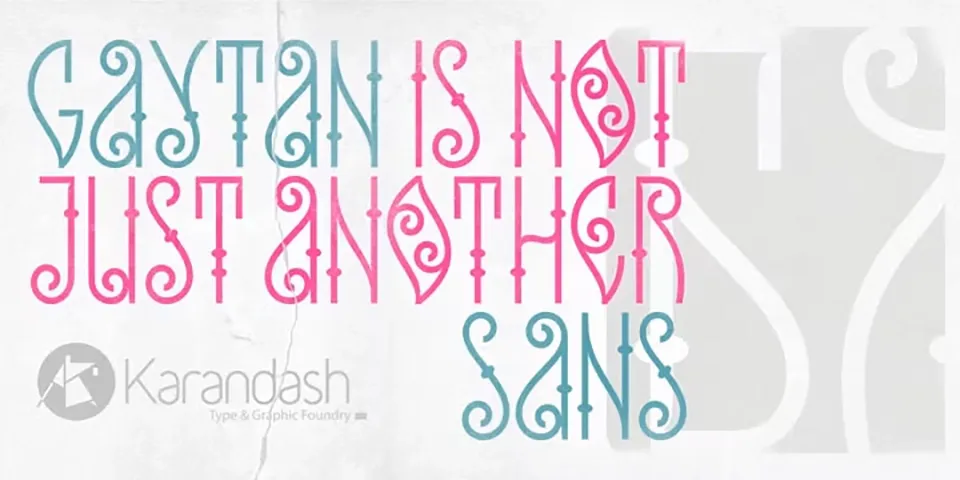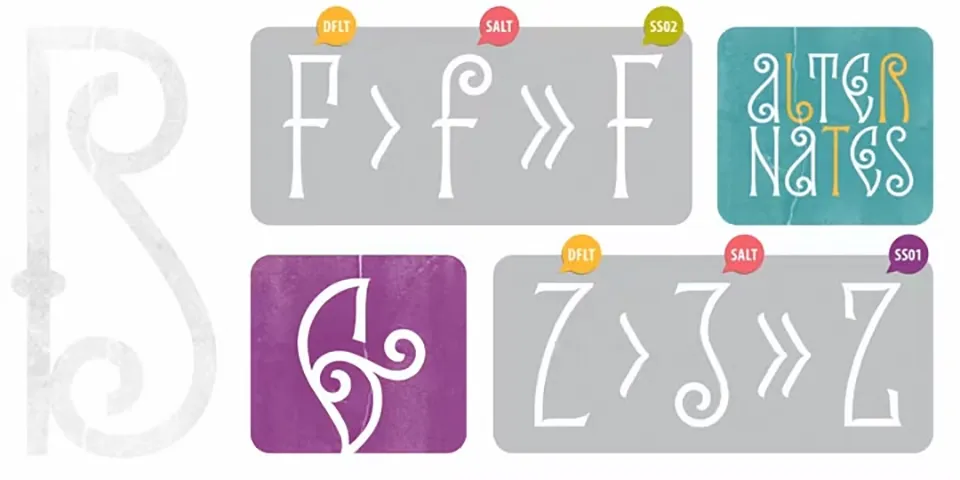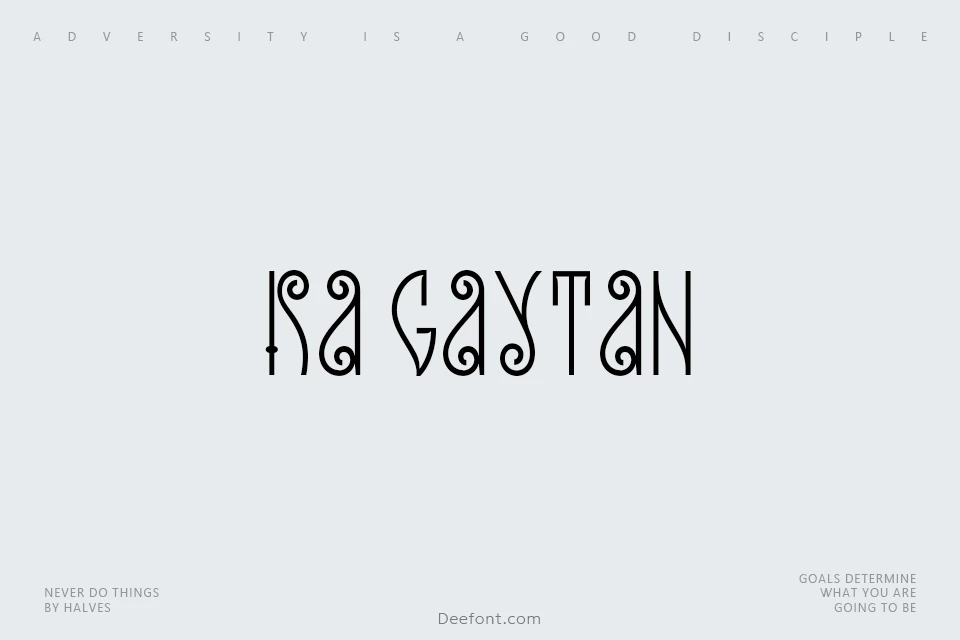
Ka Gaytan Sans Font
Ka Gaytan Font is a whimsical and decorative sans-serif typeface that stands out with its playful swirls and unique character details. Each letter is crafted with artistic flourishes, giving the font a lively and creative personality perfect for eye-catching headlines, posters, invitations, and branding projects. The combination of geometric structure and ornamental elements makes Ka Gaytan both modern and expressive, adding a sense of fun and sophistication to any design. Its distinct style ensures your message will be memorable and engaging, making it an excellent choice for projects that need a touch of originality and flair.